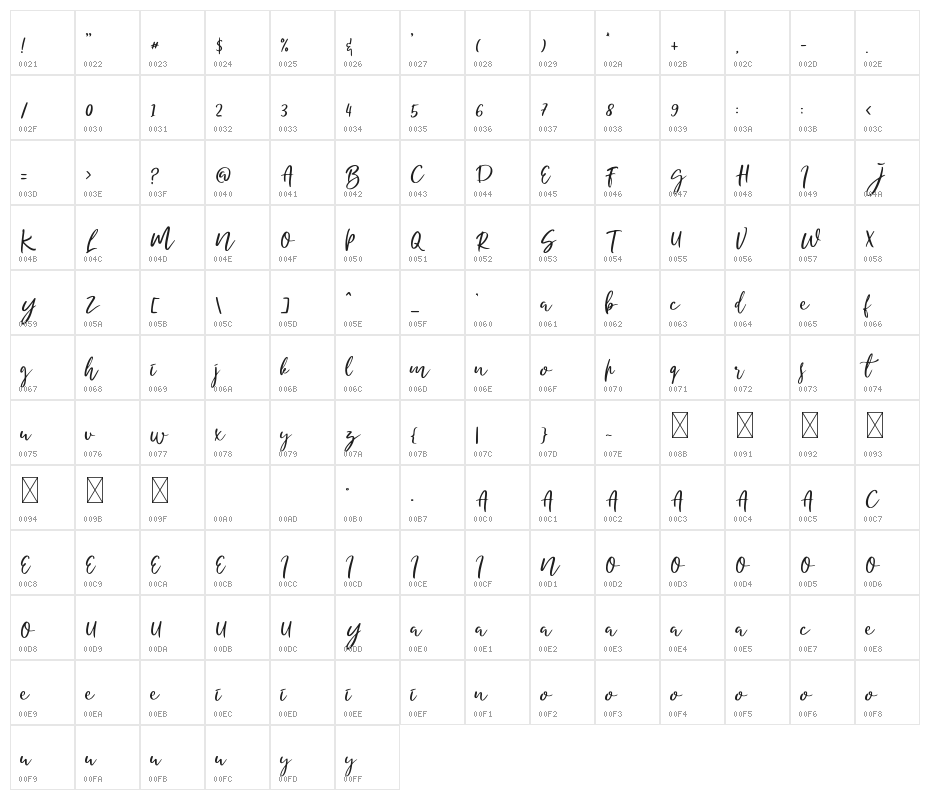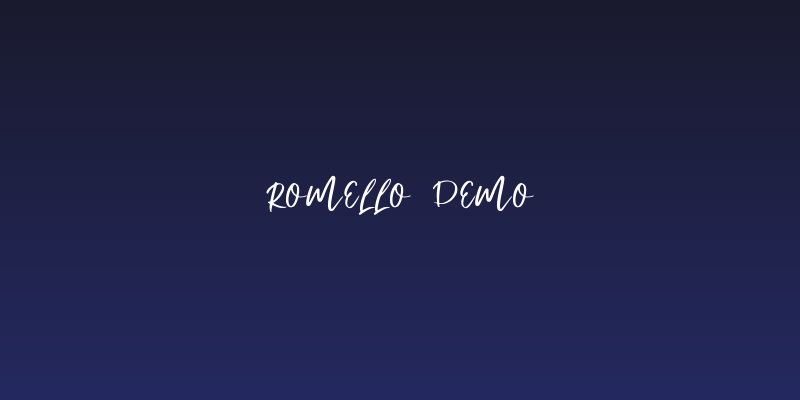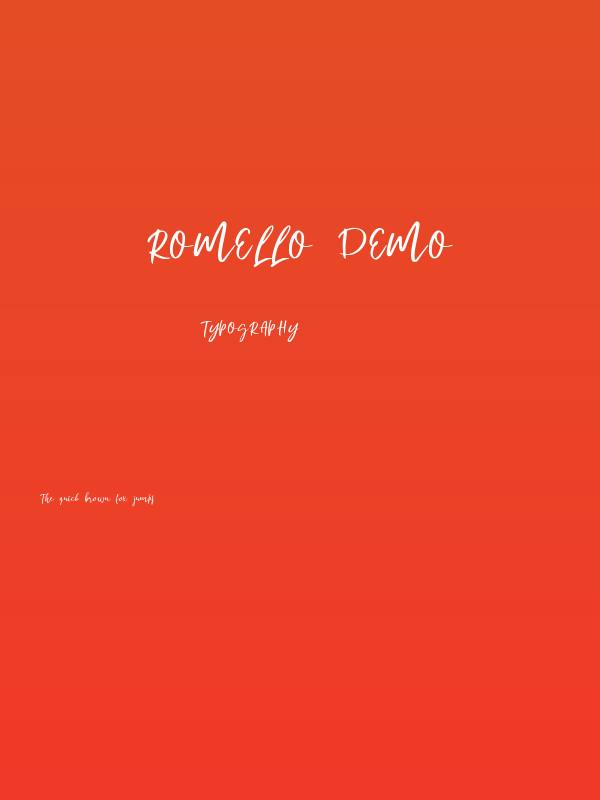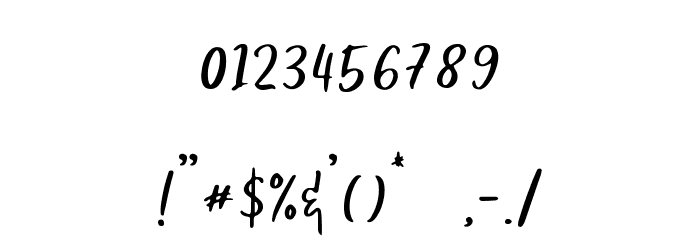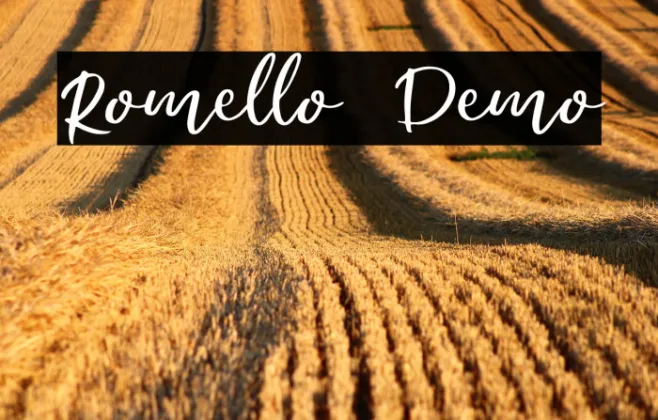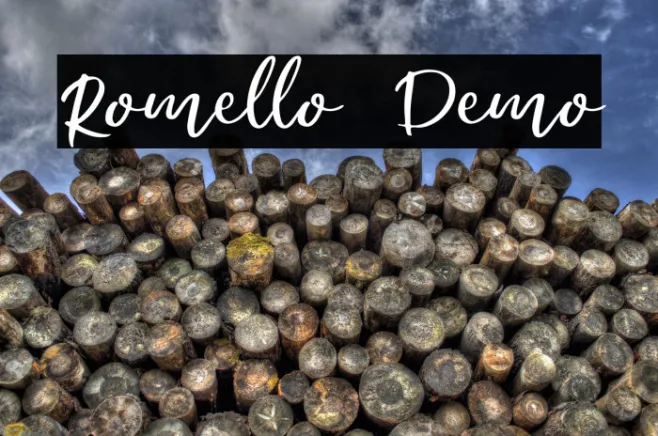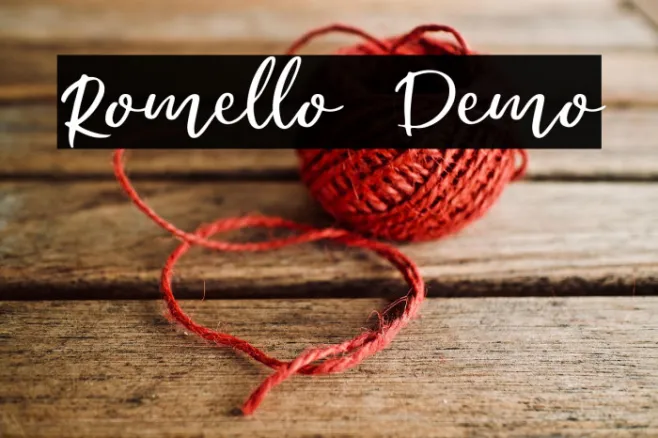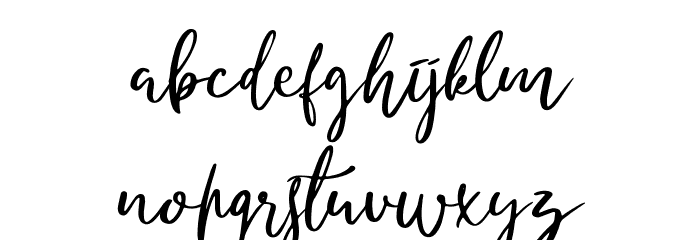
Romello Demo Font
This font exudes a lively and expressive handwritten style, characterized by its fluid and dynamic strokes. The uppercase letters are bold and slightly slanted, giving a sense of movement and energy. The lowercase letters maintain a consistent flow, with some characters featuring unique loops and swashes that add a touch of elegance. The numerals are clear and easy to read, while the special characters are designed to complement the overall aesthetic. This font's playful yet sophisticated appearance makes it ideal for creative projects.
| Proposed Projects | Ideal for wedding invitations, greeting cards, branding, and social media graphics. |